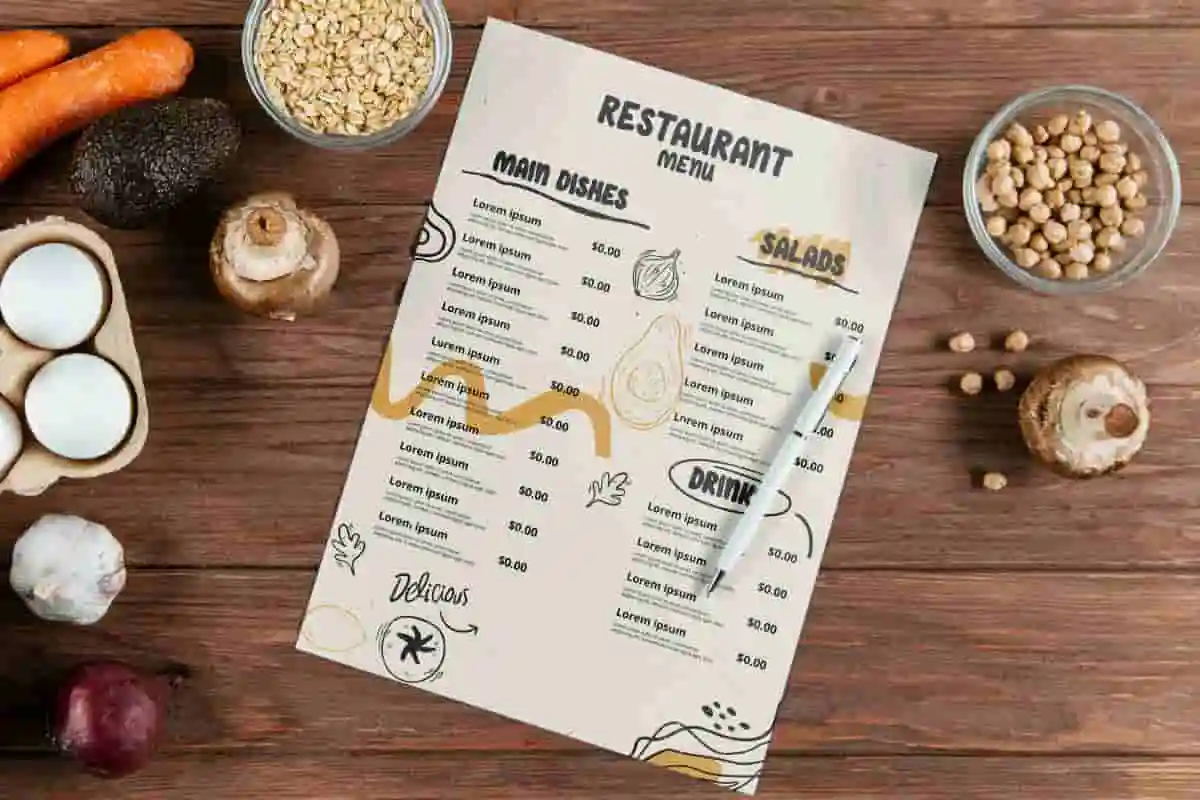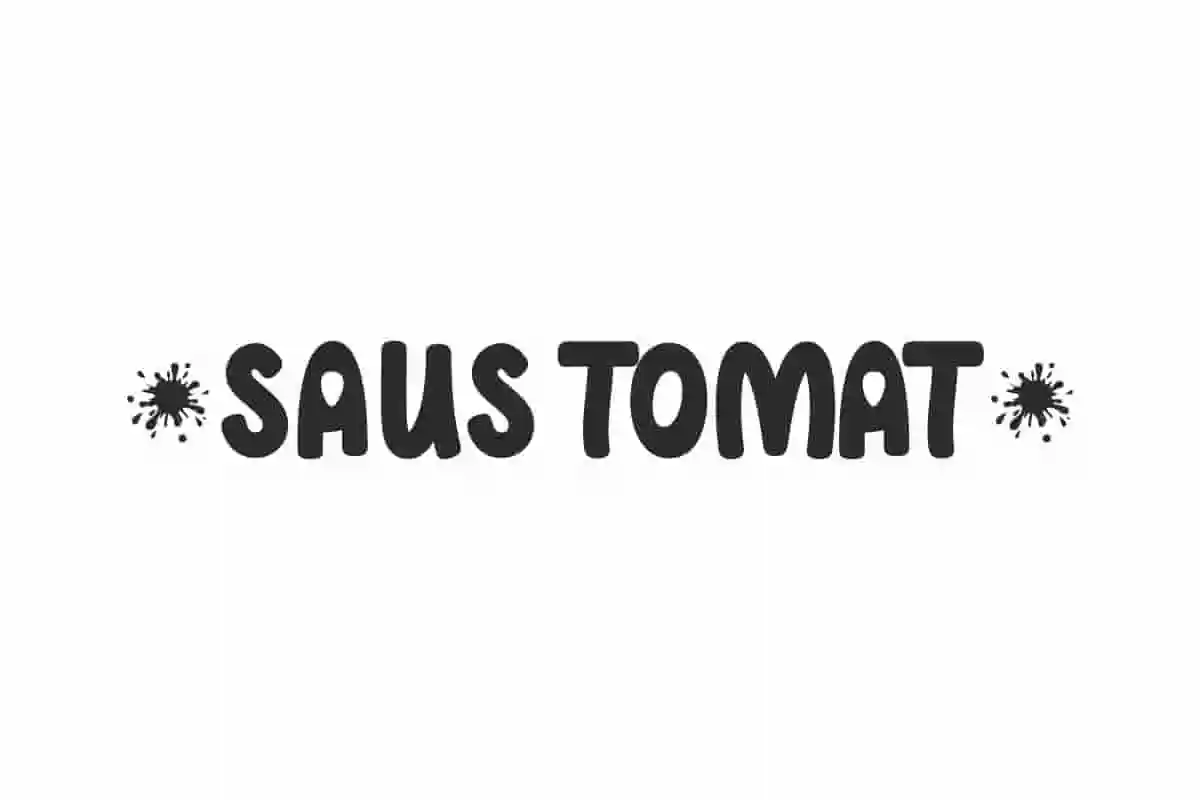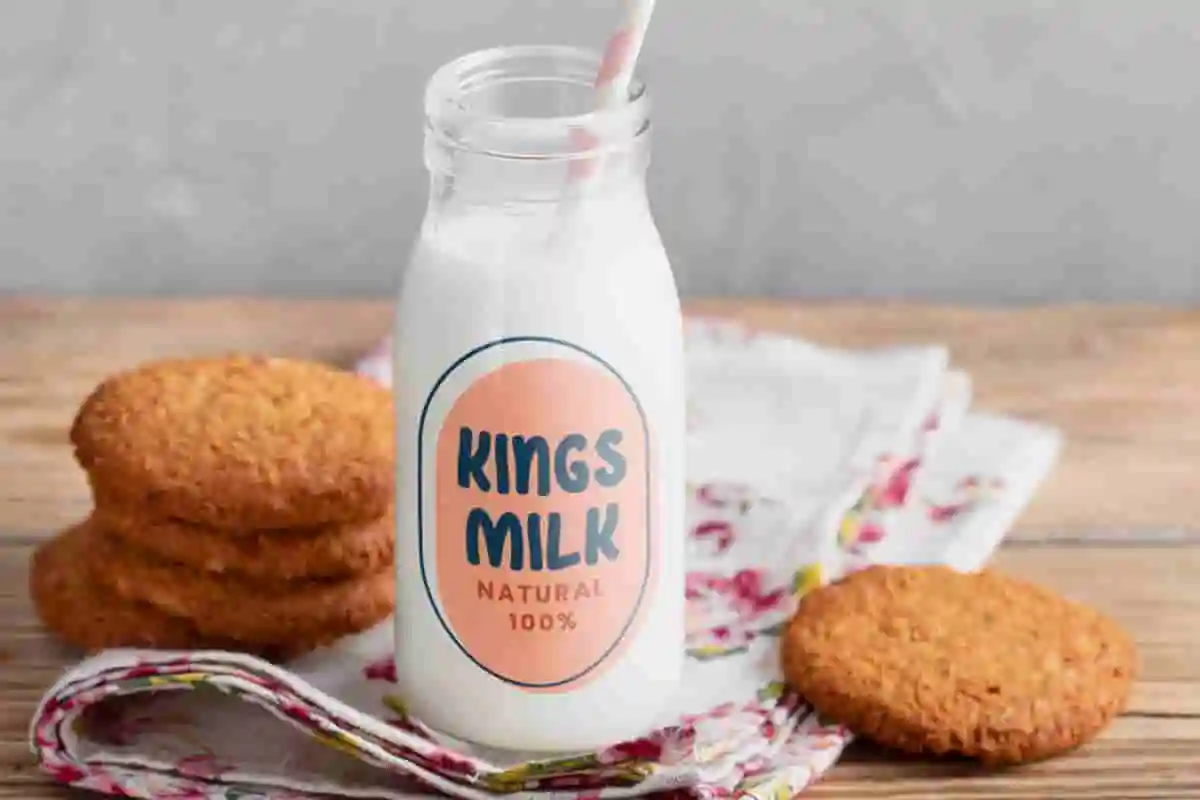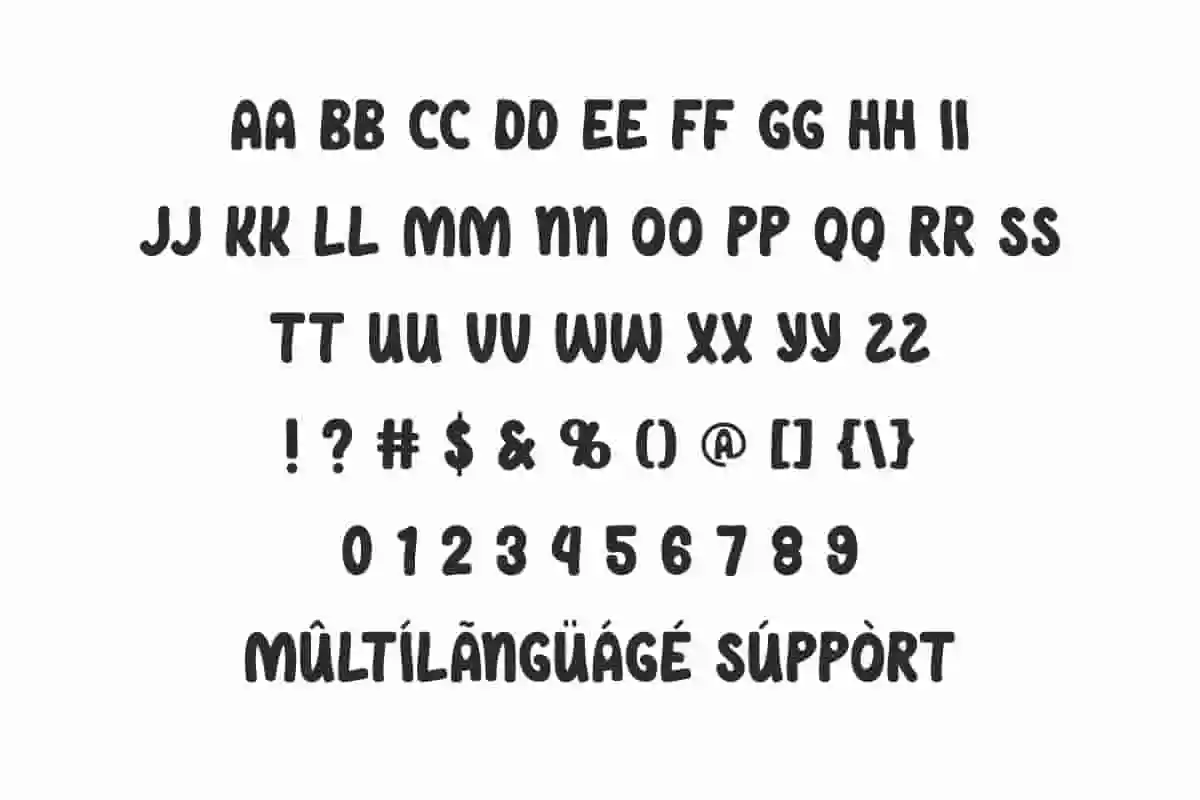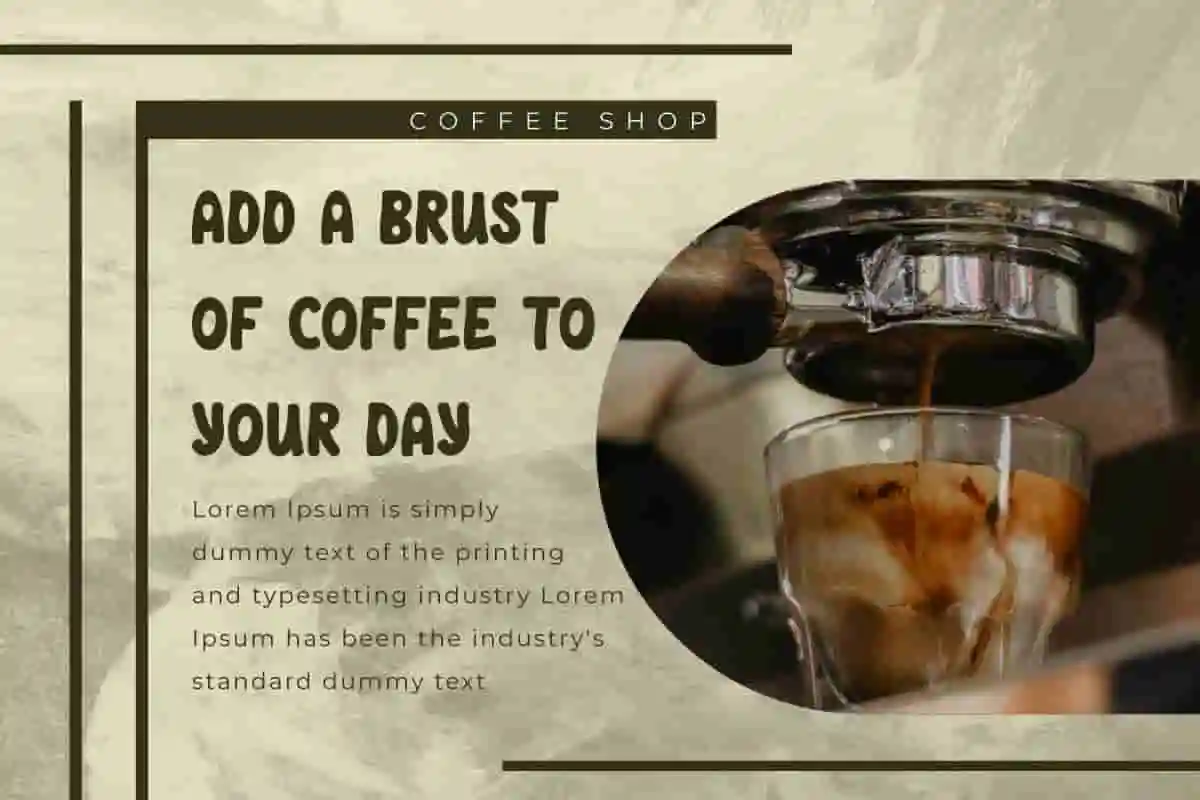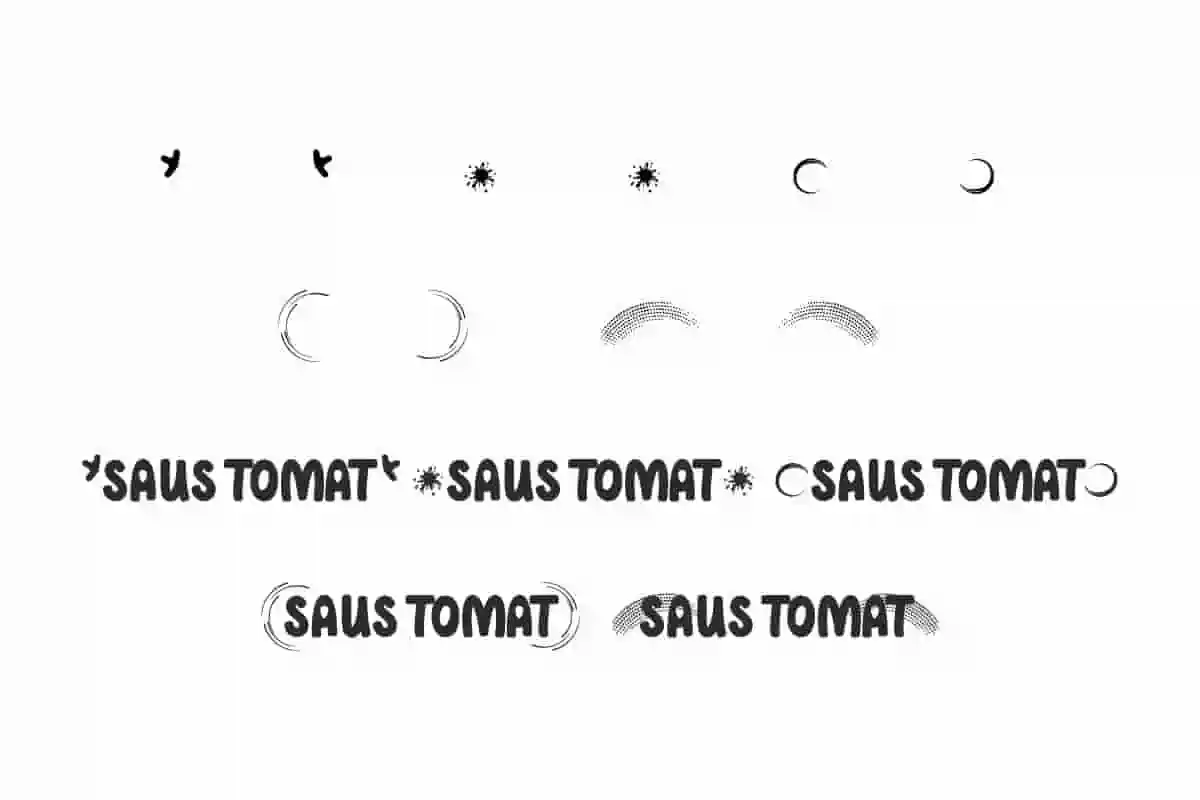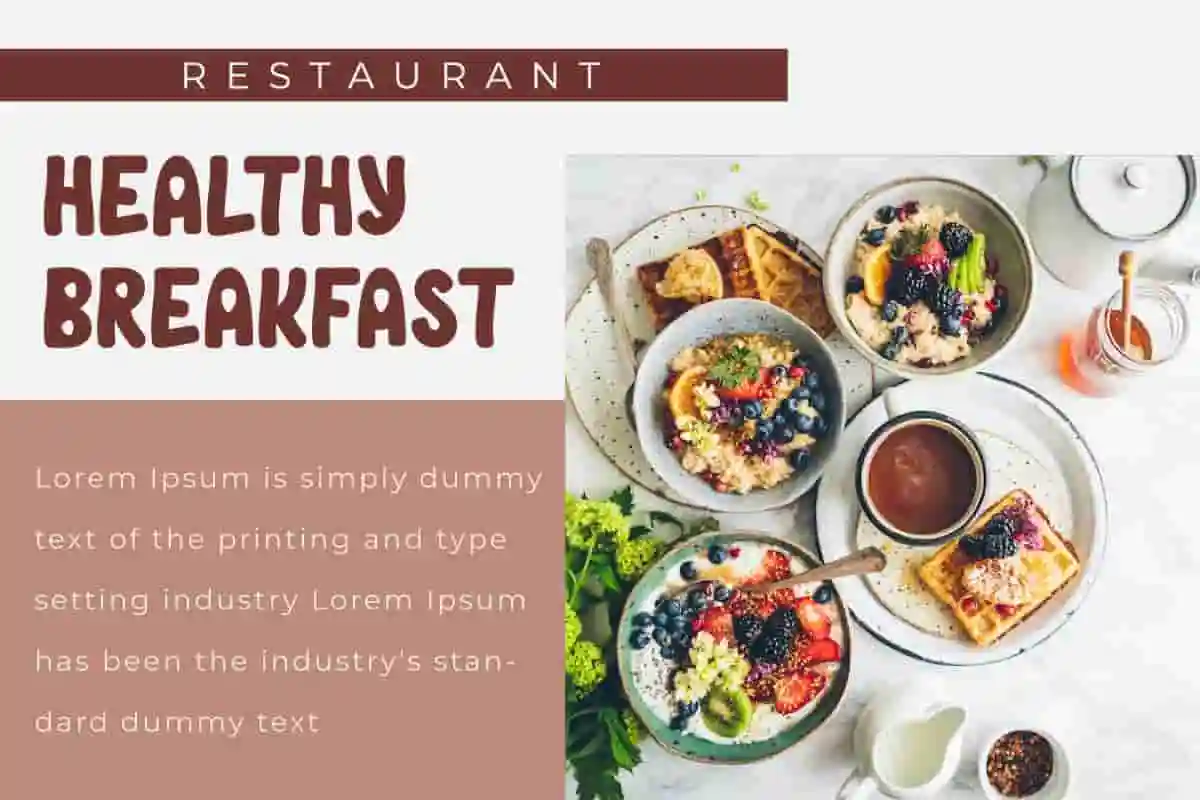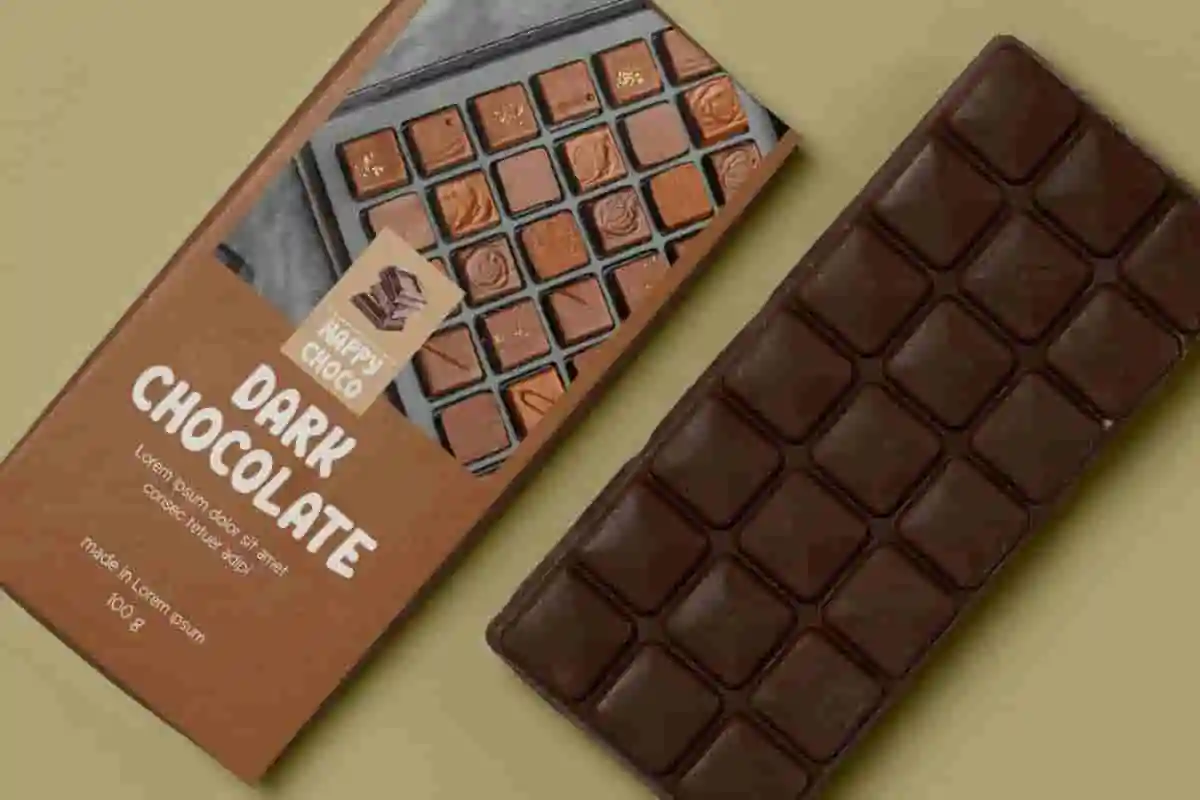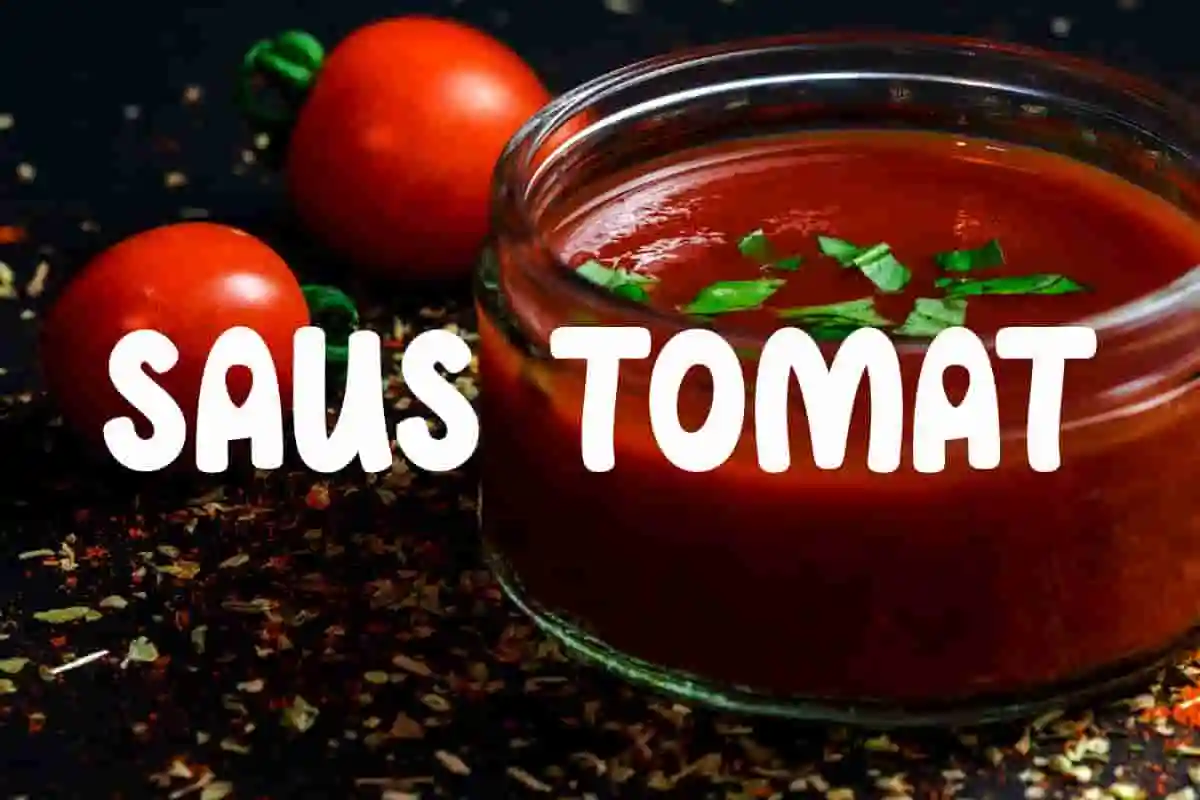
Saus Tomat Font is a fancy and playful display font with a cute cartoon comic style. The font name is Inspired amd taken from Indonesian term of Tomato Sauce.
Saus Tomat Font is a fancy and playful display font with a cute cartoon comic style. It will look more attractive to your business, such as advertisement, bakery, chocolate brand, culinary, coffee shop, film, food or beverage, graphic design, handicrafts, movie, photography, printing, publishing, restaurant, retail, school, toy, writer, and more.
Saus Tomat Font includes a full set of Basic Characters ALL CAPS, Number, Punctuation, Symbol, and some unique Swoosh characters. It will bring pleasant things to your design, such as apps, billboard, blogs, brand logo, brochure, cover, headline, invitation, label design, menu, poster, product packaging, quote, screen print, social media post, stationery, sticker, title, watermark, website, etc.